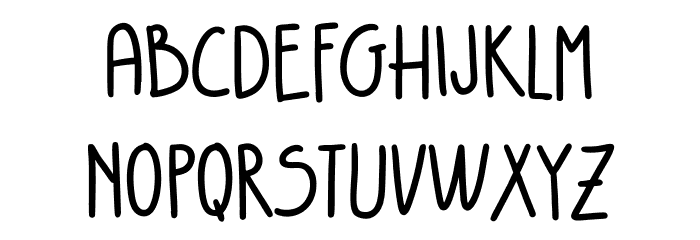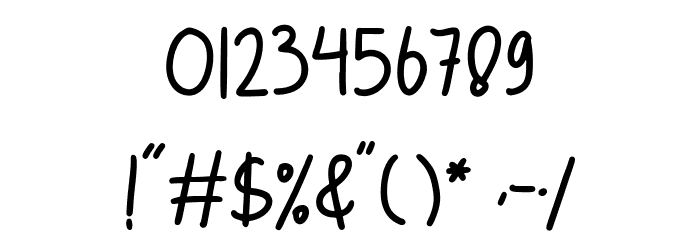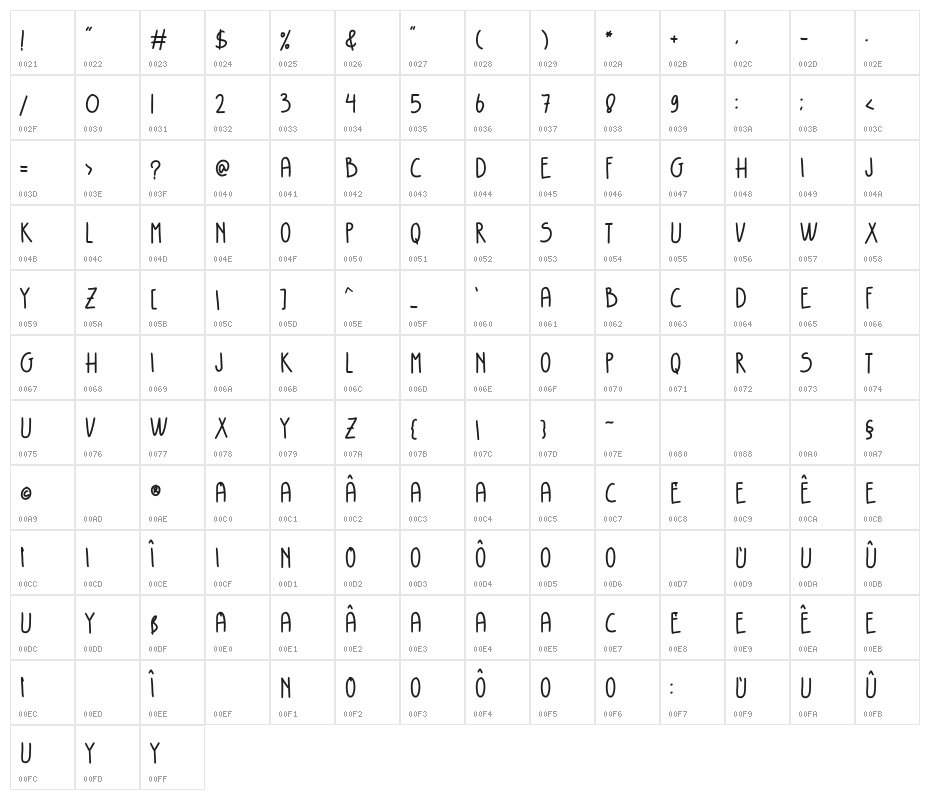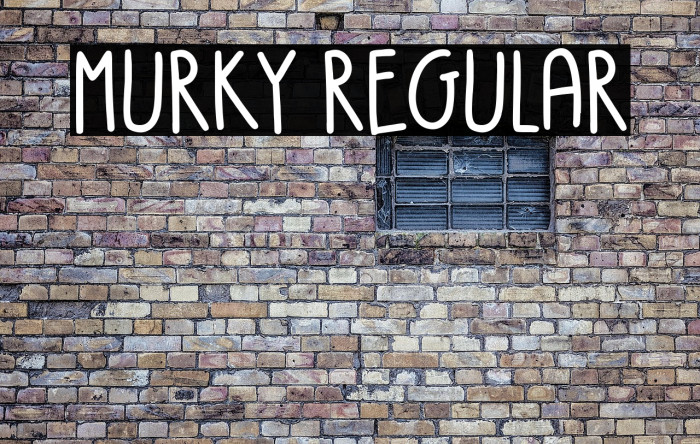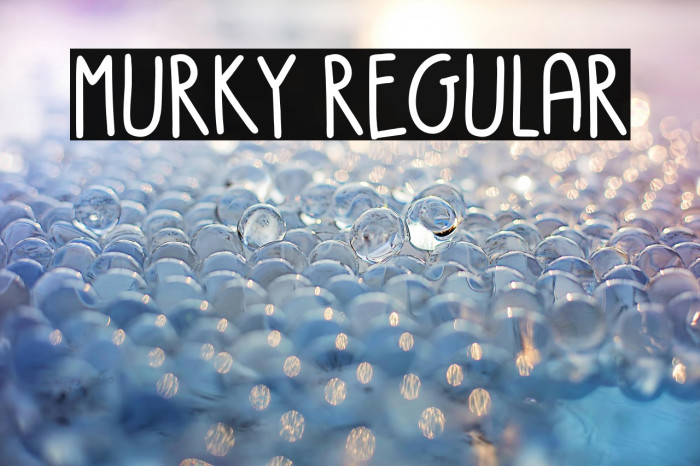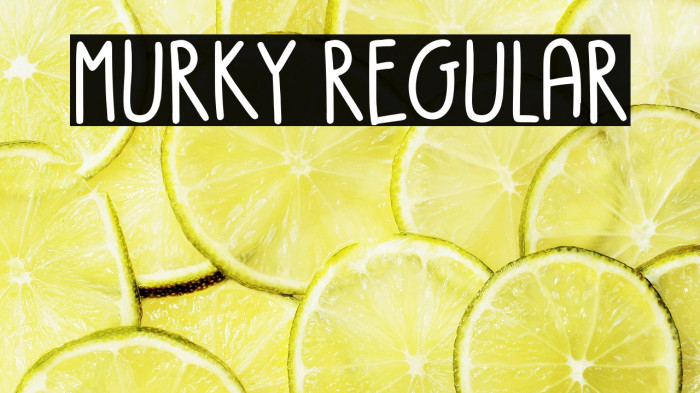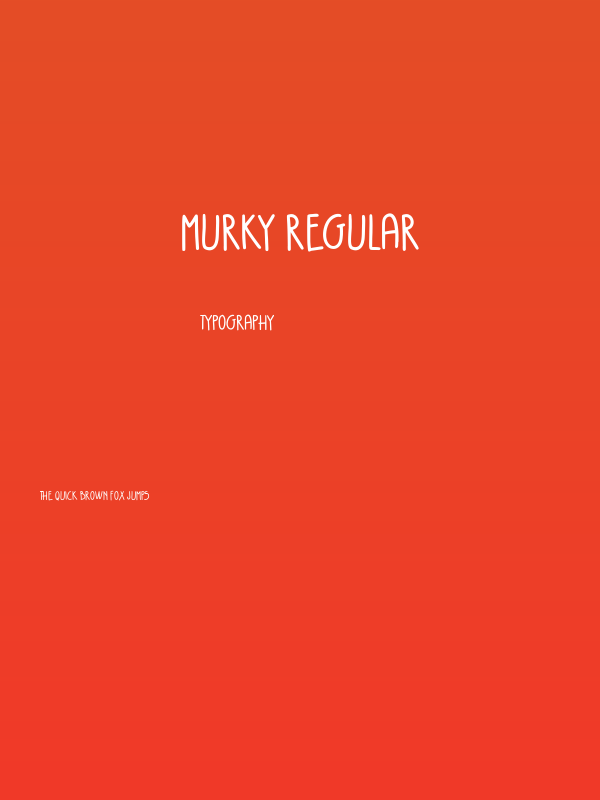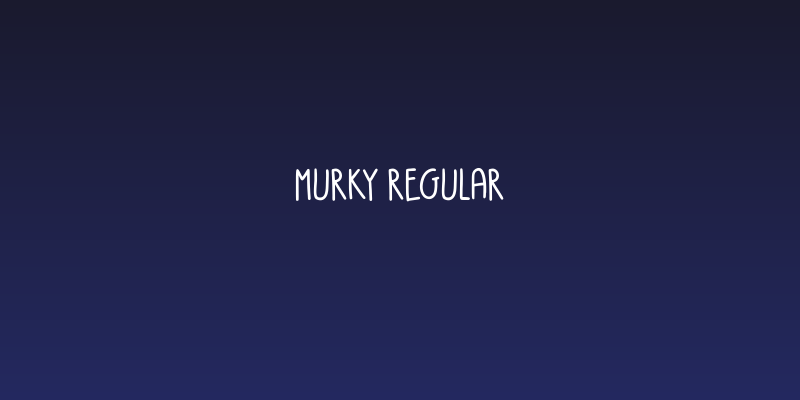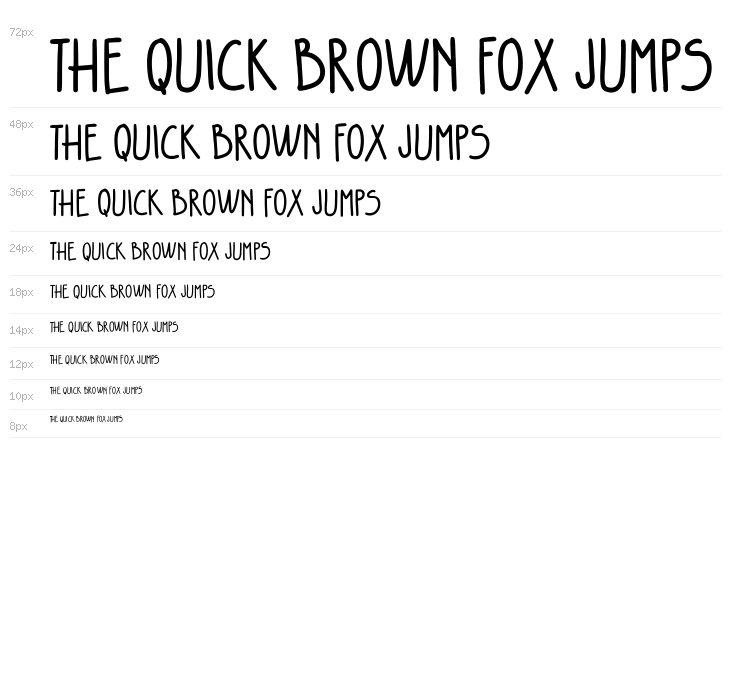
Murky Regular Font
This font features a playful and informal handwritten style, characterized by its smooth, rounded edges and slightly irregular letterforms. The characters are evenly spaced, providing a clean and readable appearance. The uppercase and lowercase letters maintain a consistent height, contributing to a harmonious look. The numerals and special characters are designed to match the overall style, ensuring a cohesive visual experience. This font's casual and friendly aesthetic makes it suitable for projects that require a personal touch.
A playful, informal handwritten font with smooth, rounded edges.
- Proposed Projects: Ideal for greeting cards, children's books, casual branding, and social media graphics.
- Category: Handwritten
- Overall Style: Casual
- Use Case: Headlines, Informal text, Branding